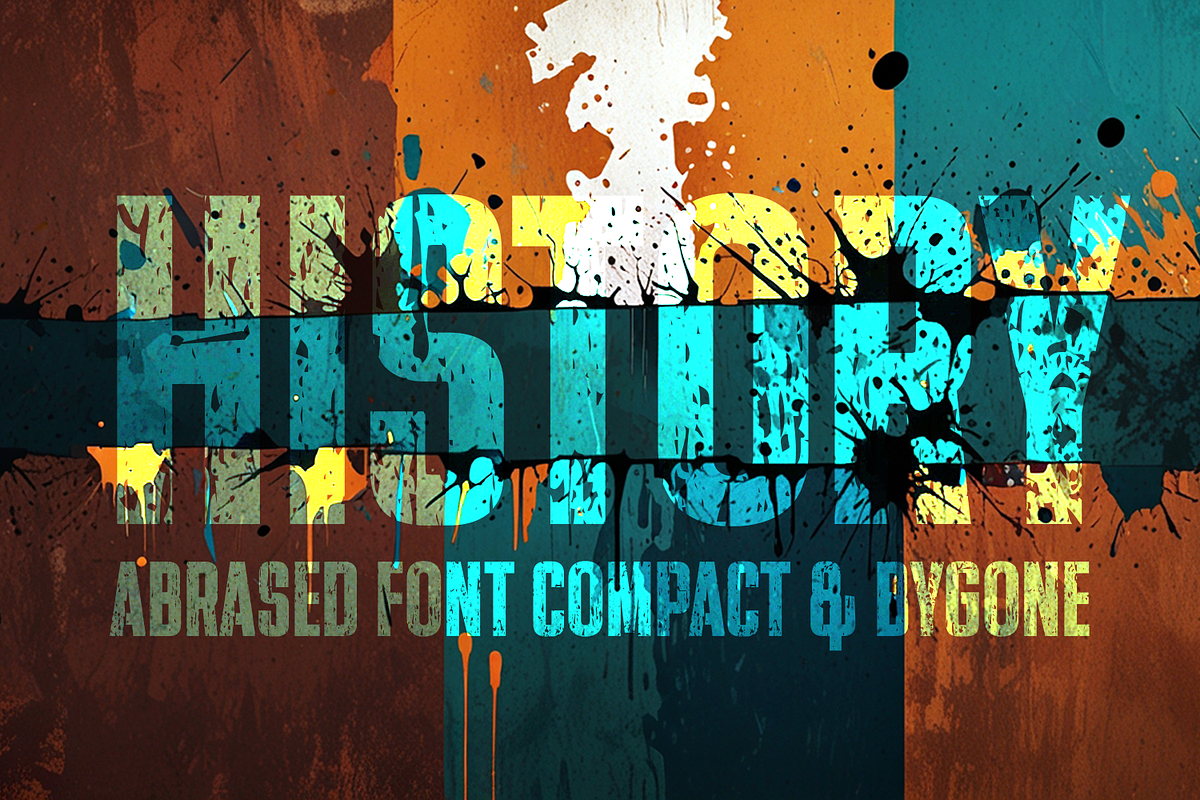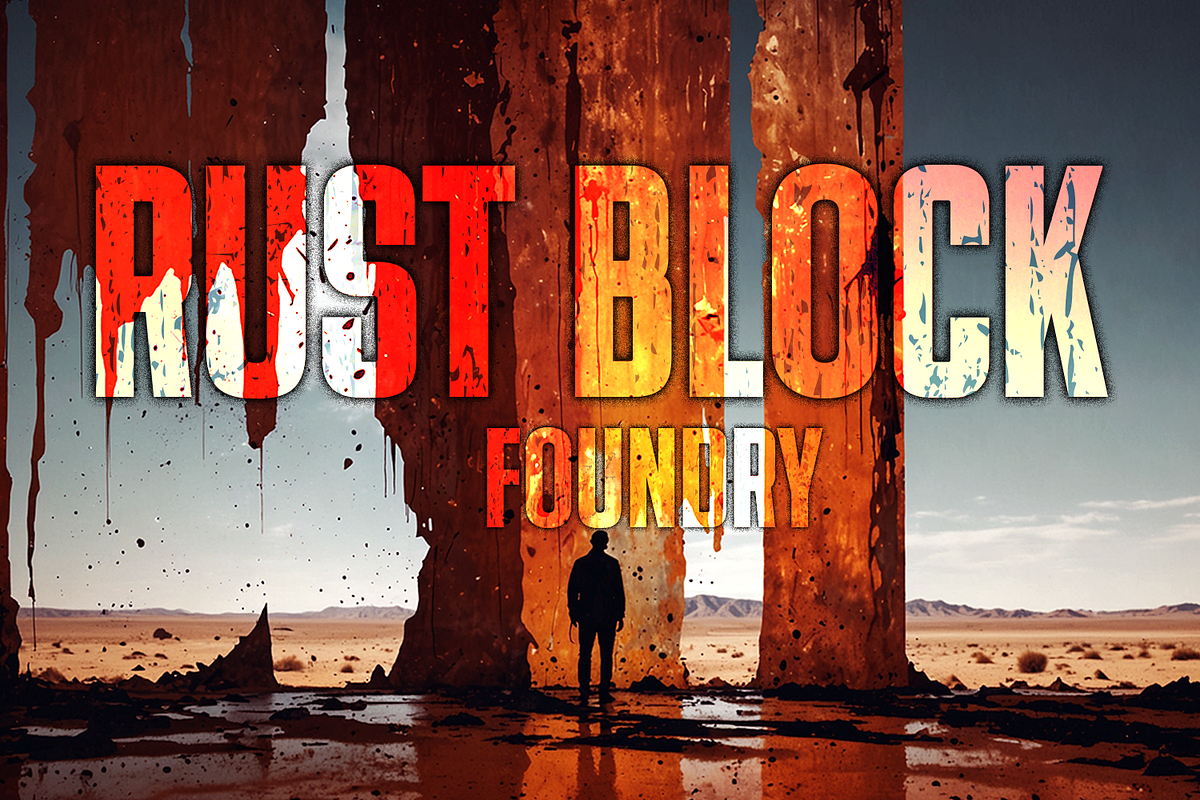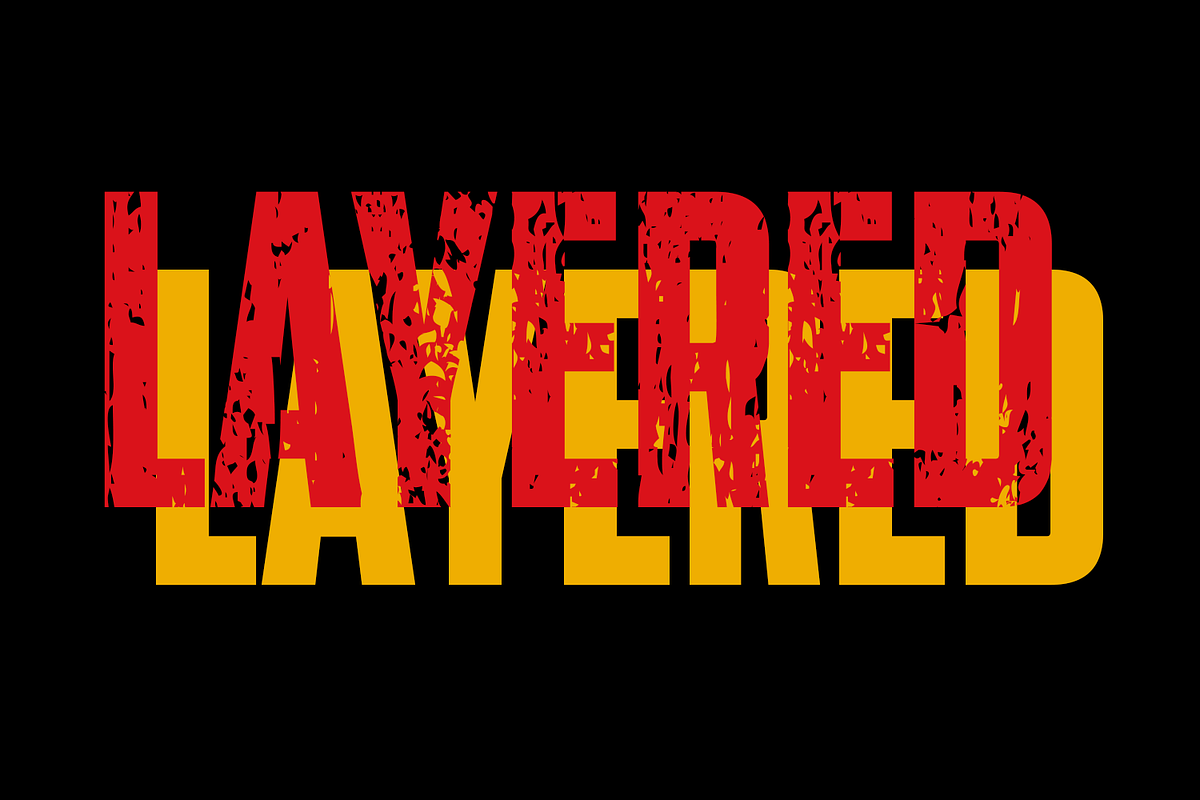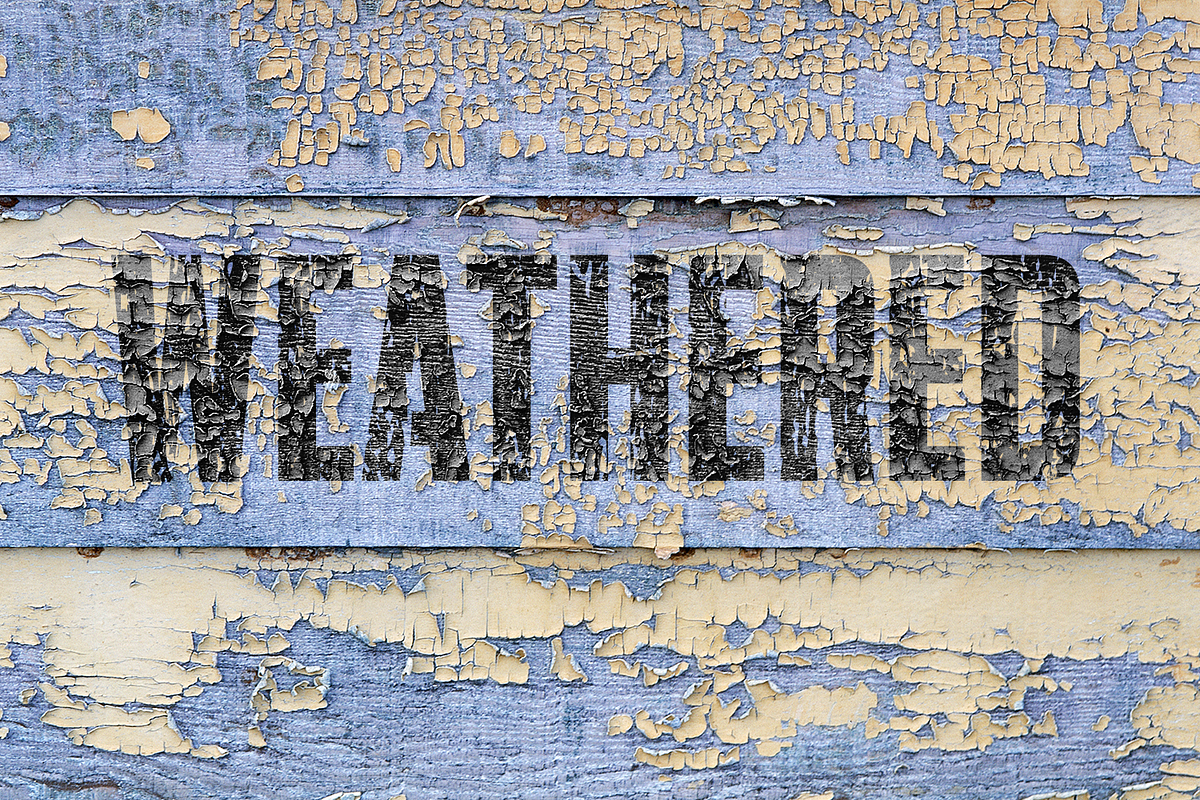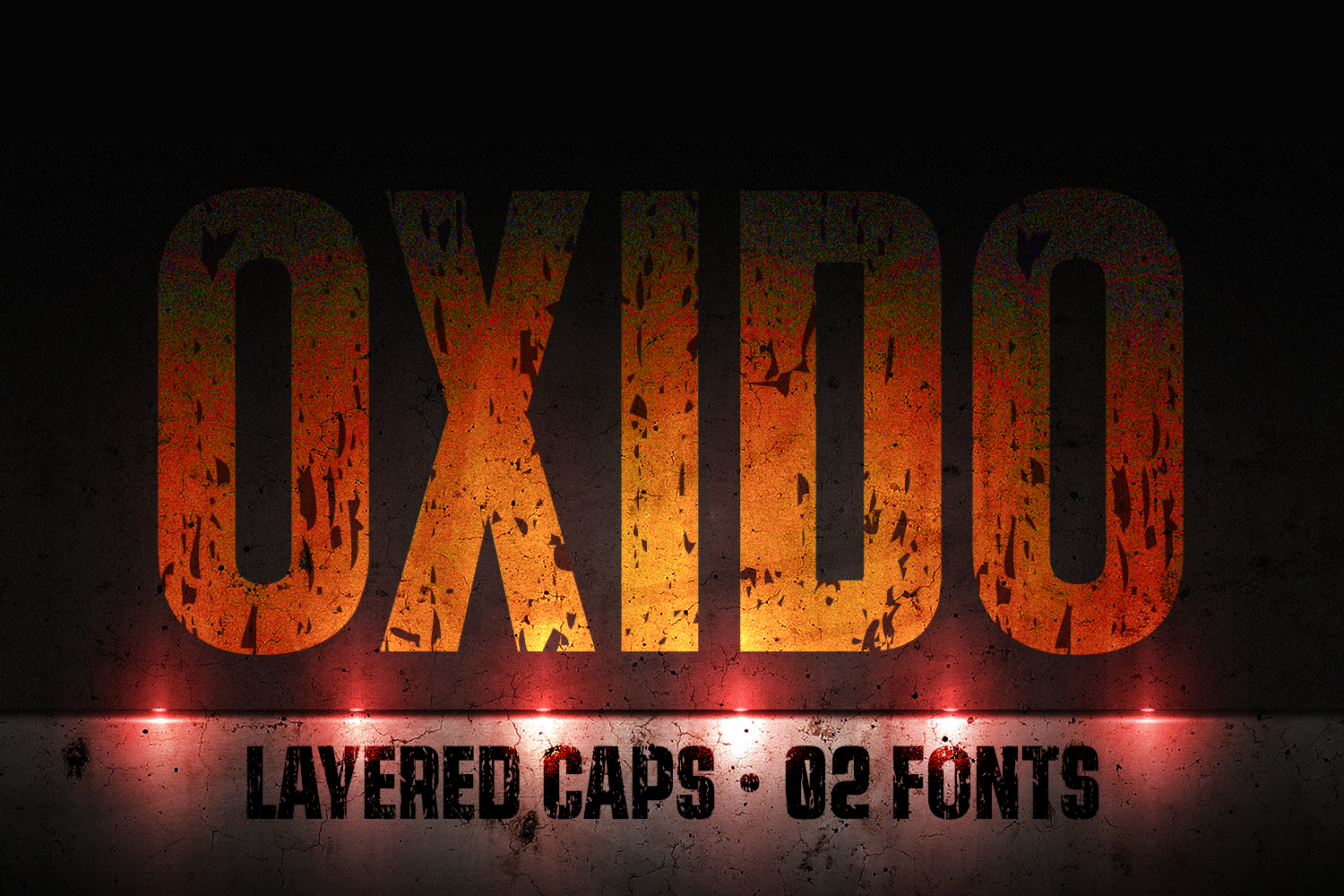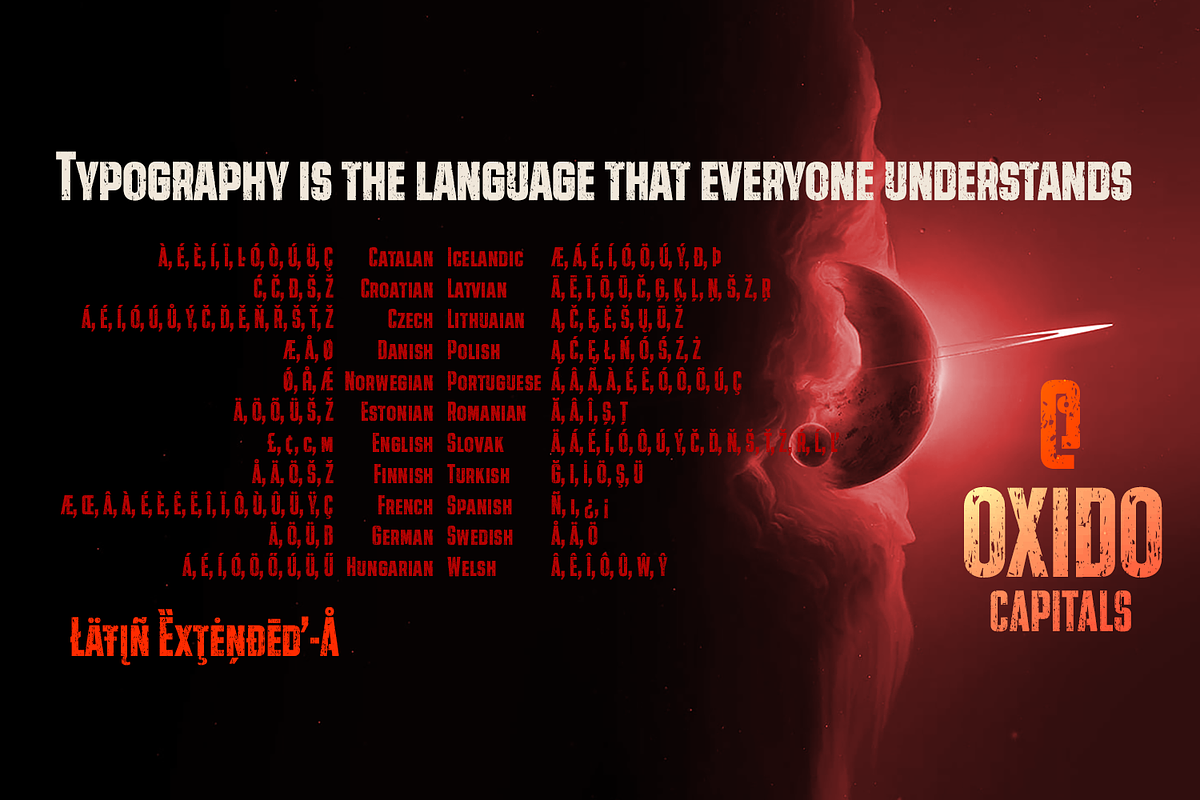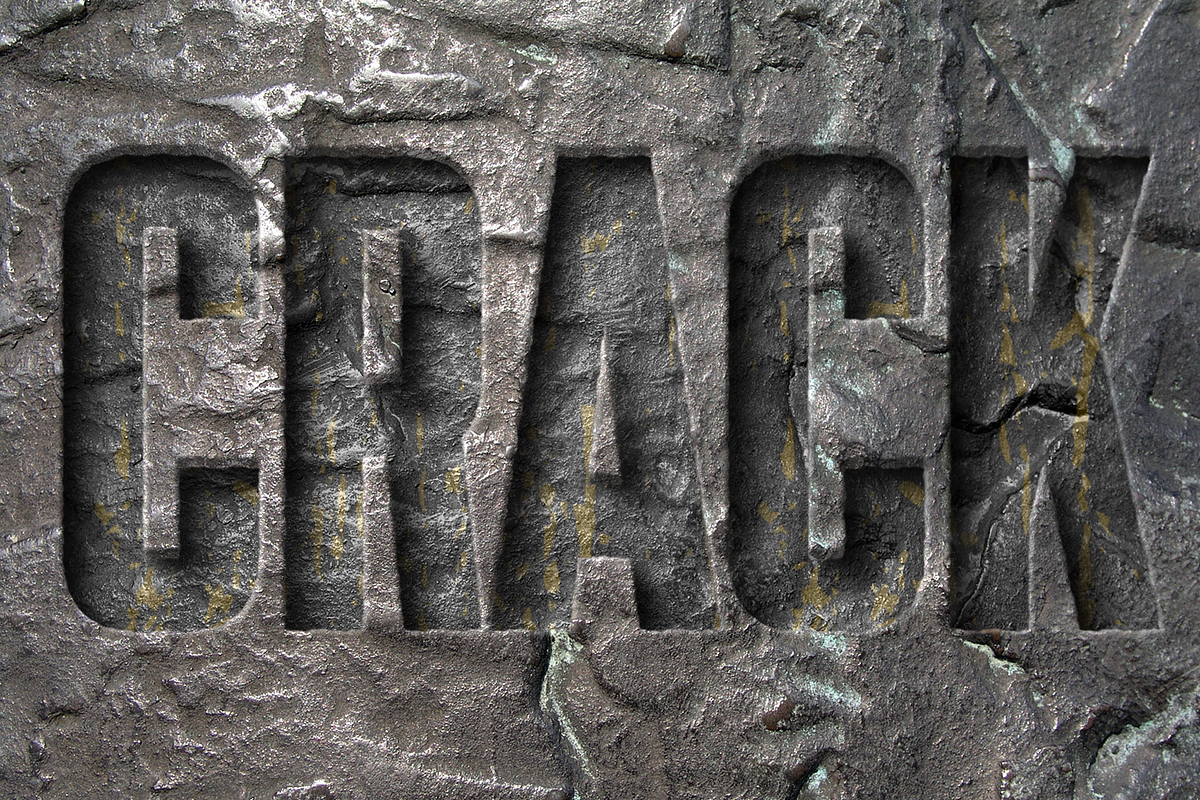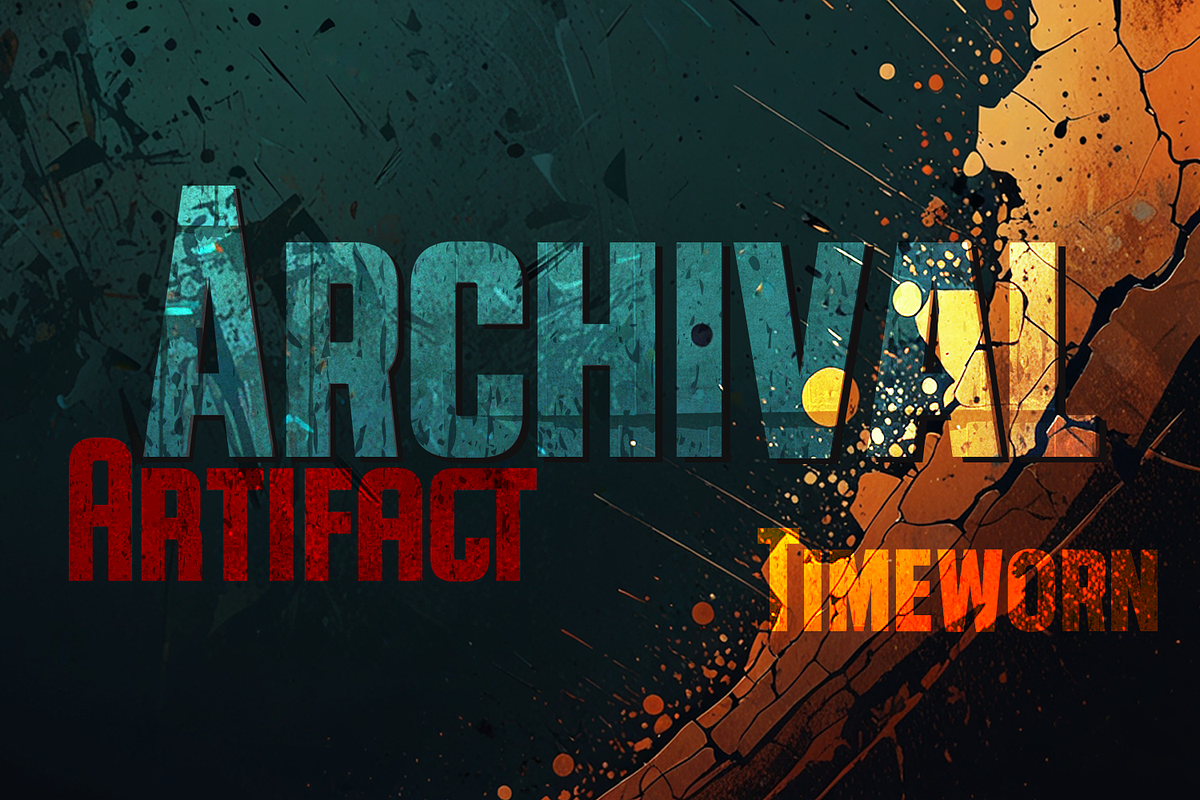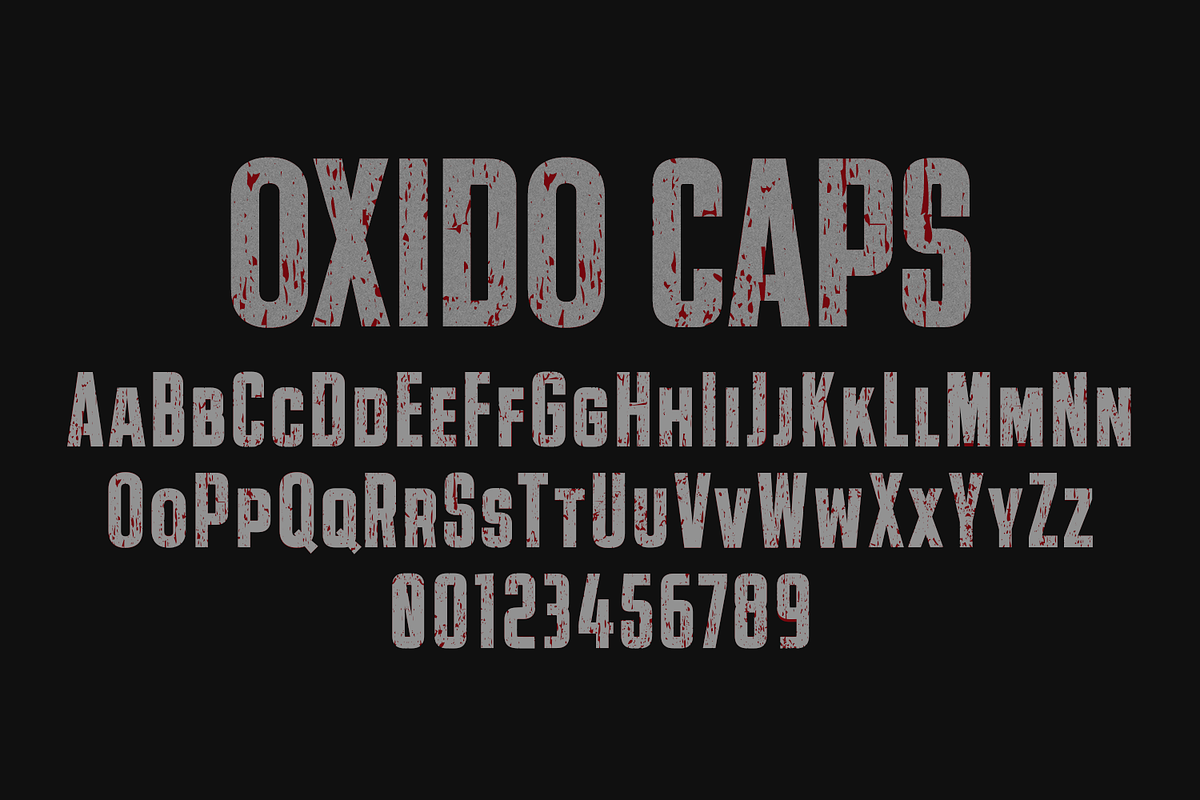
Oxido Caps | Solid & Eroded | Fonts
Oxido Caps was born from a powerful idea: to capture the relentless imprint of time. The roughness of rust, the industrial toughness, and the beauty of imperfection merge into a typeface that doesn't sacrifice legibility or typographic sophistication.
It's not just an eroded—or "destroyed"—font; it's a visual testament to resilience and authenticity. Each glyph in Oxido is a metaphor for the passage of time, combining technical rigor with expressive power.
Its Layered system opens up a universe of graphic possibilities by allowing you to superimpose layers and build titles in two or more colors, generating a purely typographic effect of depth and drama.
Two versions with the same spirit, two sides of the same coin:
Oxido solid: The solid, robust base, extra condensed and clean. It's the foundation upon which the layered effect is built and a powerful option on its own for direct and impactful messages. Perfect for straightforward, solid, and uncompromising headlines.
Oxido eroded: The textured character, the refined wear, the story on the surface. This version applies the weathering effect in a controlled way, capturing the essence of oxidation, the passage of time, and imperfections on the solid surface.
🔻OXIDO Caps - 02 fonts: Solid & Eroded
570 glyphs. Latin Extended-A. 87 alternates.
OXIDO Caps include the symbol of Bitcoin and currency symbols.
OpenType Features: Additional languages, All Alternates, Alternate Annotation Forms, Bitcoin, Capital Spacing, Contextual Alternates, Denominators, Discretionary Ligatures, Fractions, Historical Forms, Inferiors, Kerning, Localized Forms, Numbers Small Caps, Numerators, Oldstyle Figures, Ordinals, Scientific Inferiors, Slashed Zero, Small Capitals, Standard Ligatures, Stylistic Set, Subscript, Superiors, Superscript.